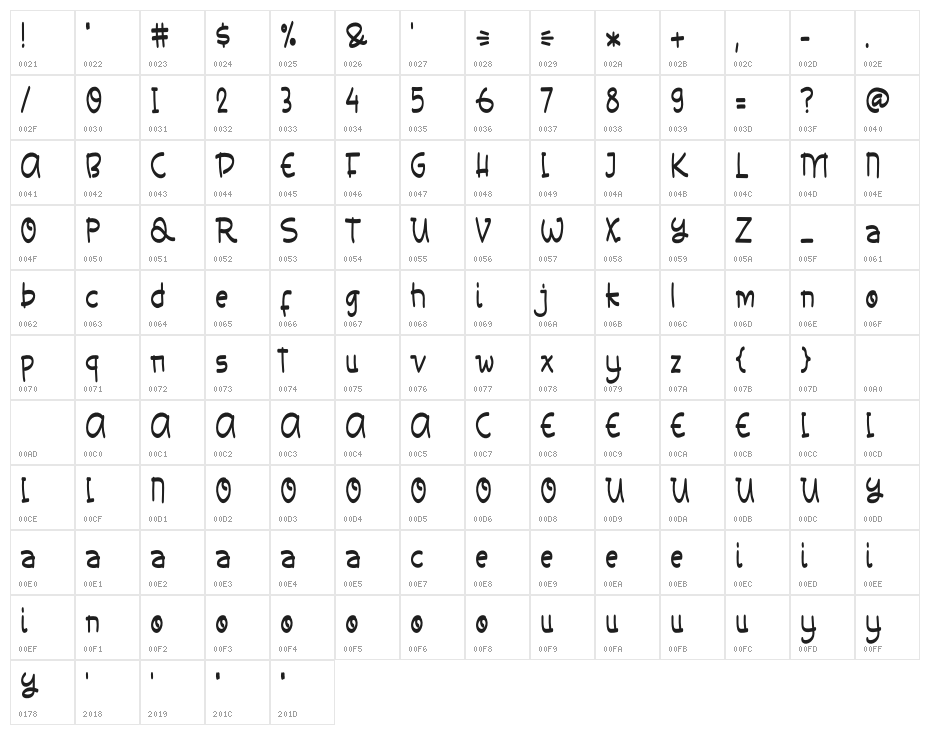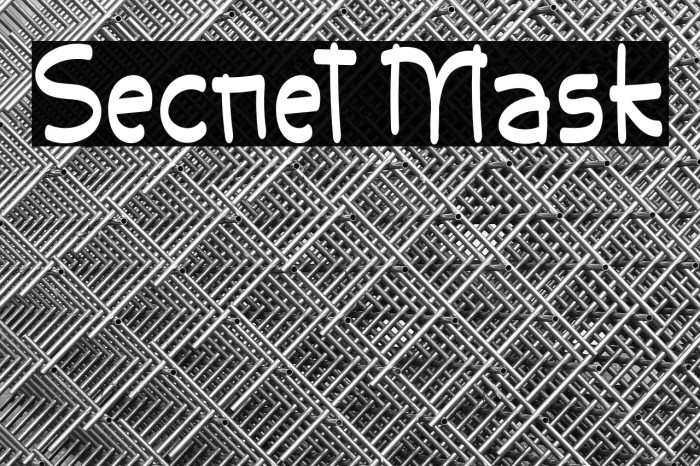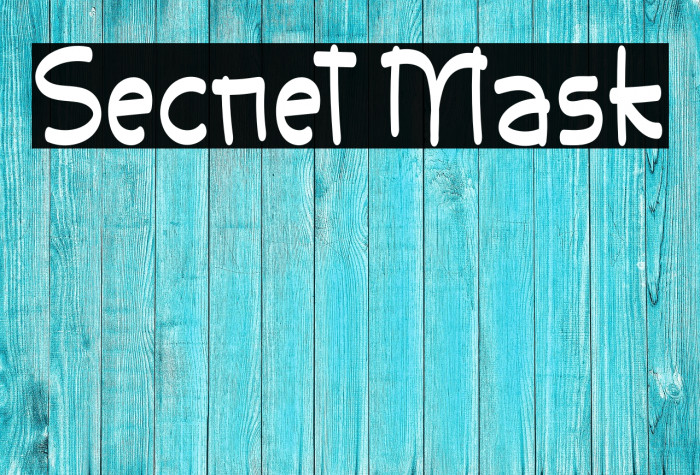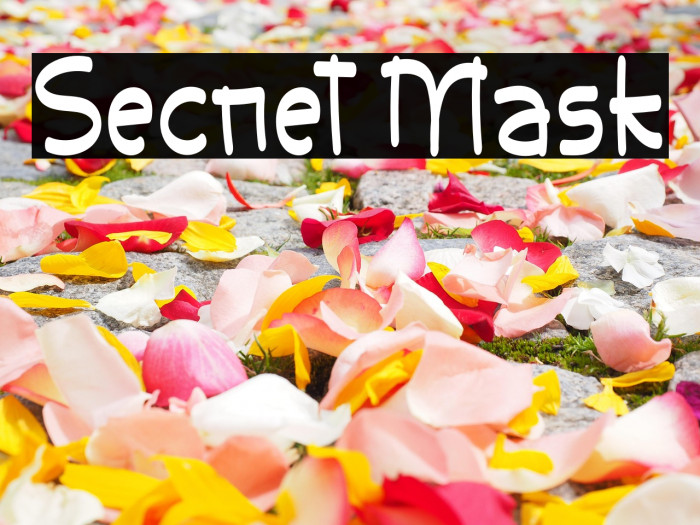
Secret Mask Font
Secret Mask Description
This font features a playful and quirky design, characterized by its rounded and slightly irregular letterforms. The strokes are consistent in thickness, giving it a uniform appearance while maintaining a hand-drawn feel. The uppercase and lowercase letters are distinct yet harmonious, with a slight tilt that adds to its whimsical nature. The numerals and special characters follow the same style, ensuring a cohesive look across all elements. This font's unique personality makes it stand out, perfect for projects that require a touch of creativity and fun.
| Use Case | Logos, Headlines, Posters |
| Proposed Projects | Ideal for children's books, playful branding, greeting cards, and creative posters. |